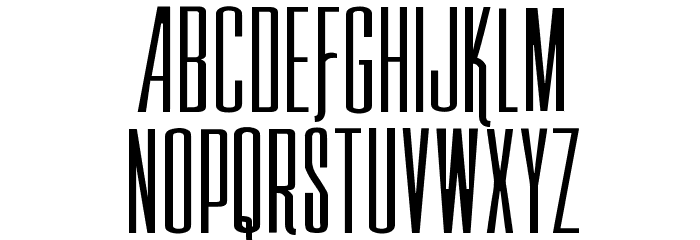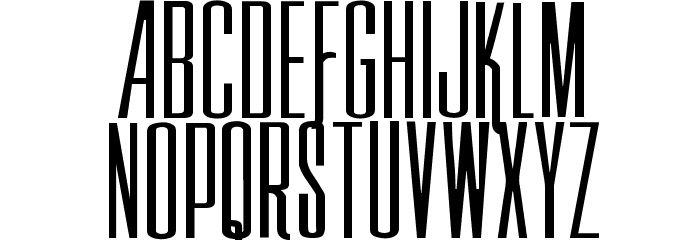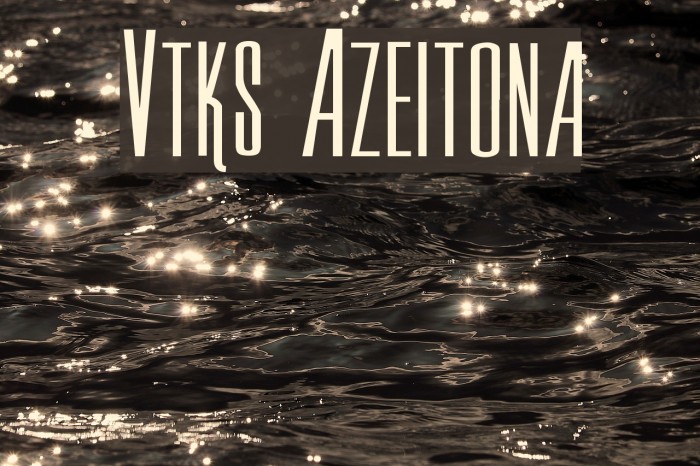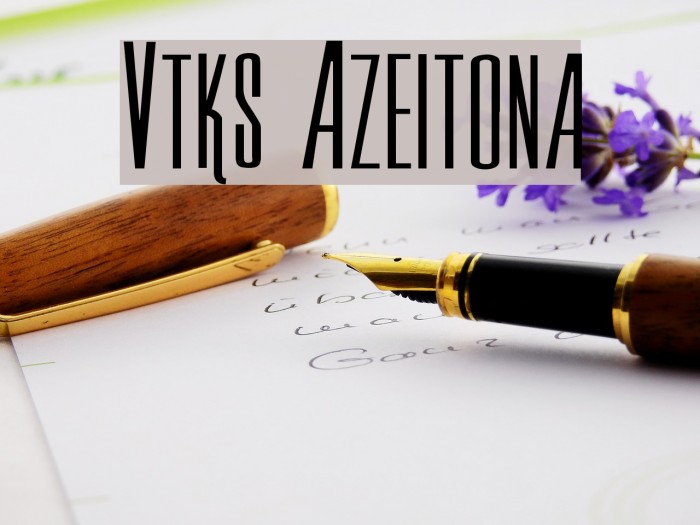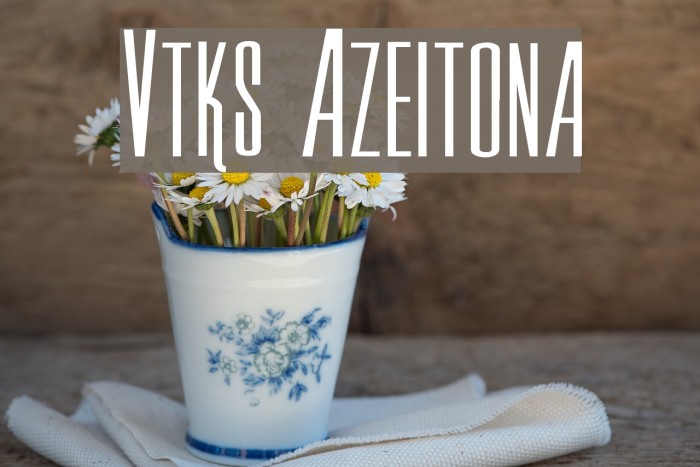
Vtks Azeitona Font
This font features a tall, narrow design with elongated characters that give it a striking and modern appearance. The uppercase letters are particularly prominent, with a consistent height and vertical emphasis that creates a sleek, streamlined look. The font's geometric structure is complemented by subtle curves, adding a touch of elegance to its overall aesthetic. The spacing between characters is tight, enhancing its compact and cohesive feel. This font is well-suited for projects that require a bold and impactful visual statement, such as headlines, posters, and branding materials. Its unique style makes it stand out, capturing attention with its distinctive and contemporary flair.
A tall, narrow font with a modern and striking appearance, featuring tight character spacing.
- Proposed Projects: Ideal for headlines, posters, branding, and any project needing a bold visual impact.
- Character Spacing: Tight